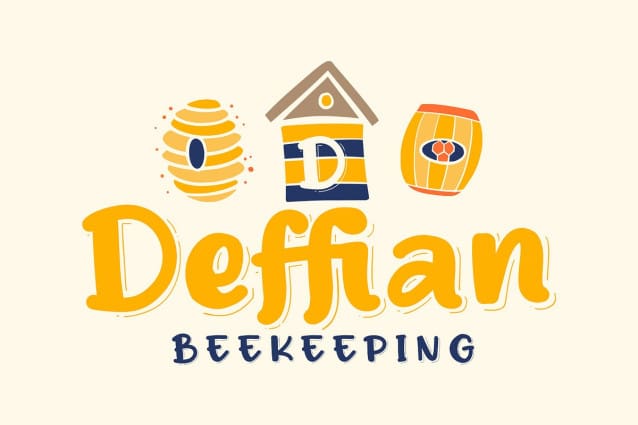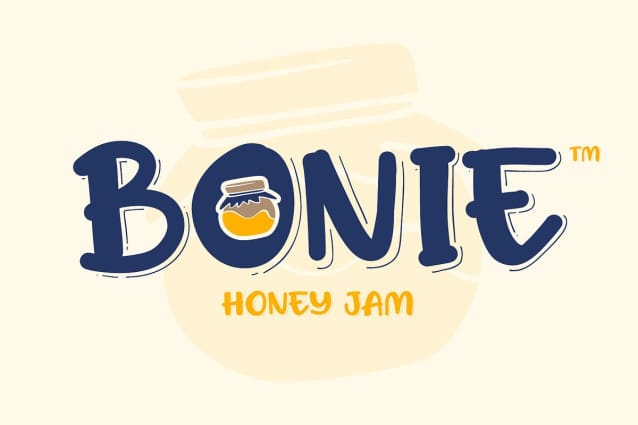
Honey Ponds Font
Honey Ponds Font is a simple display font in a plain, yet interesting, professional design. To create a better display and to be legible, the font’s form or geometry is presented in a simple style without many details. Additionally, this font provides you a clipart as a bonus.
Honey Ponds fits best for various design projects, such as brandings, posters, banners, headings, magazine covers, quotes, invitations, name cards, printed products, merchandise, social media, etc. Find out more ways to use this font by taking a look at the font preview.